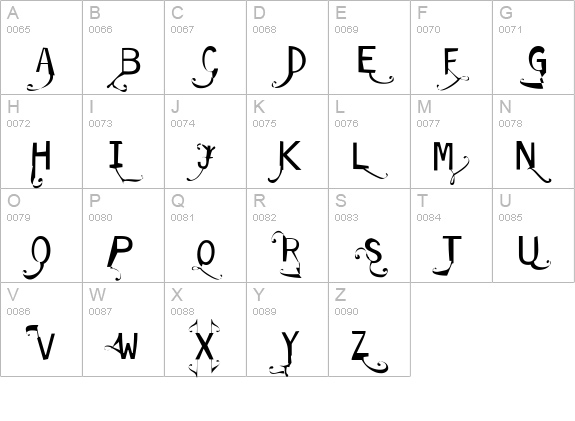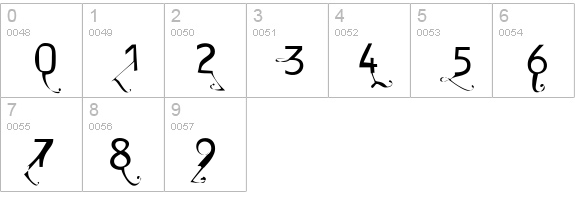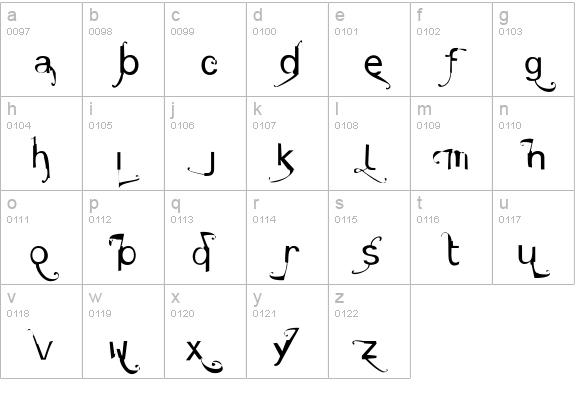
Dysplasia Font Details
Dysplasia font is a unique and modern typeface that exudes creativity and sophistication. Its sleek lines and distinctive characters make it perfect for a wide range of design projects, from branding to editorial design. The font's elegant curves and sharp edges create a striking visual impact that is sure to capture attention. One of the best things about Dysplasia font is that it is completely free to download. You can easily access this stunning typeface at FontsMarket.com, where you can enhance your projects with this stylish and versatile font without any cost. Don't miss out on the opportunity to add Dysplasia font to your font collection and elevate your designs to the next level.